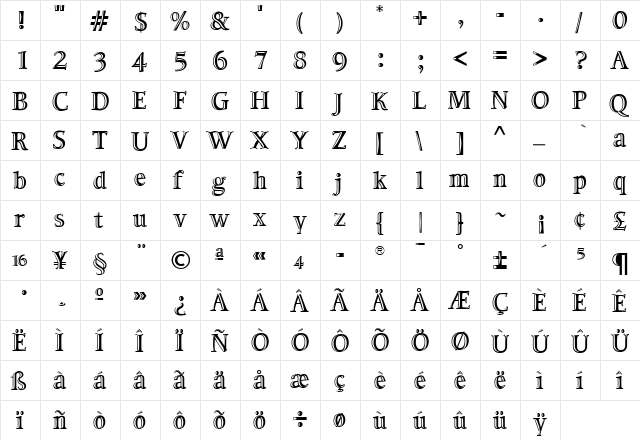
TFHabitatCntourB Bold
| Foundry | Joseph Treacy, Treacyfaces, Inc |
| Year | 1986 |
Design Context for TFHabitatCntourB Typeface
TFHabitatCntourB is a composed and adaptable typeface that performs quietly and consistently across a wide range of design contexts. The heavy weight commands attention and anchors typographic hierarchies.